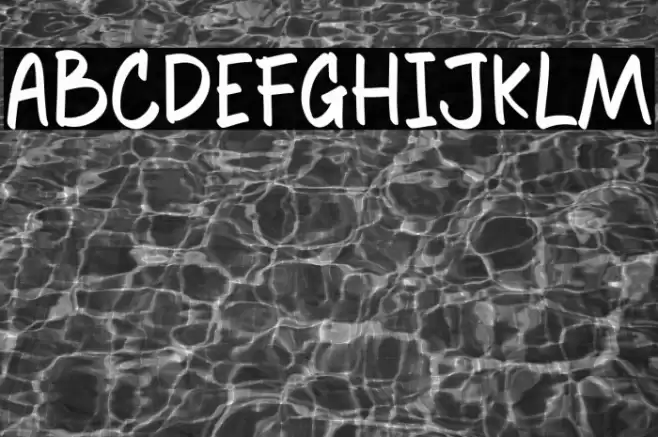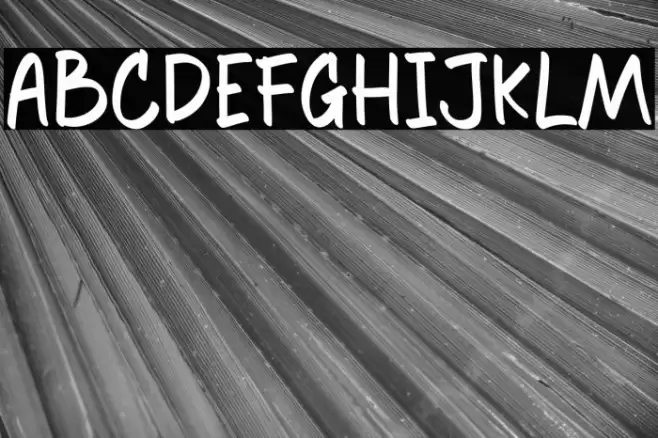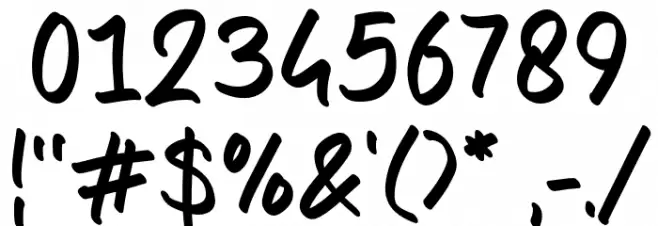
Hook Franco Font
Hook Franco Description
This font exhibits a playful and energetic handwritten style, characterized by its bold and slightly irregular strokes. The letters have a casual, informal appearance, with a slight slant that adds to its dynamic feel. The uppercase and lowercase letters maintain a consistent style, with rounded edges and a friendly demeanor. Numbers and special characters are crafted with the same lively touch, ensuring uniformity across all glyphs. The overall design suggests a sense of spontaneity and creativity, making it suitable for projects that require a personal or artistic touch.
A bold, playful handwritten font with a lively and informal style from Uncategorized fonts.
- Font: Hook Franco
- Proposed Projects: Ideal for greeting cards, children's books, creative posters, and personal branding.
- Overall Style: Playful, Energetic, Informal
- Use Case: Headlines, Creative projects, Personal branding